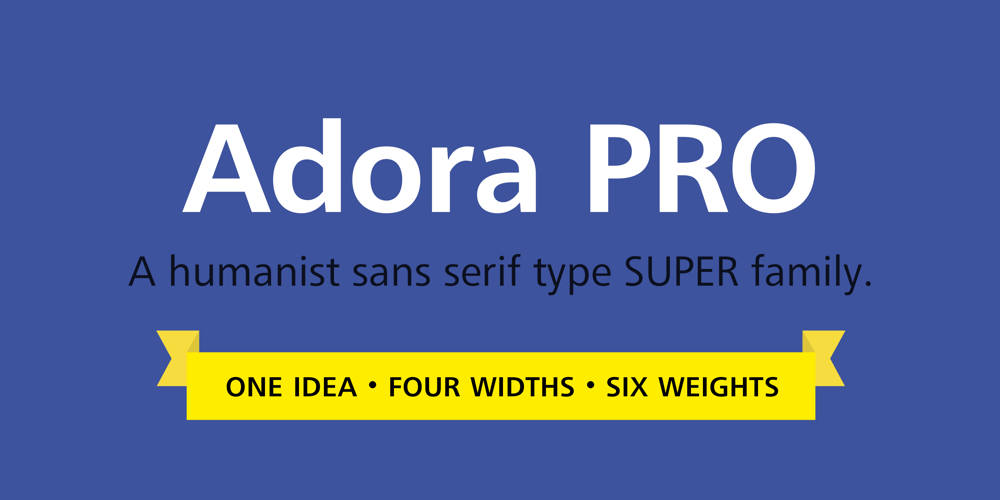
Adora Compressed PRO Font Family was designed by Ingo Preuss and published by preussTYPE. Adora Compressed PRO contains 12 styles and family package options. German type designer Ingo Preuss created this sans Super-family between 2010 and 2015. The family has 84 weights, ranging from Light to Ultra in Normal, Compact, Condensed and Compressed (including italics). It comes in OpenType format with extended language support. All weights contain ligatures, superior characters, proportional lining figures, tabular lining figures, proportional old style figures, lining old style figures, matching currency symbols, fraction- and scientific numerals and matching arrows. The “Adora PRO family” is ideally suited for advertising and packaging, editorial and publishing, logo, branding and creative industries, poster and billboards, small text, wayfinding and signage as well as web and screen design.